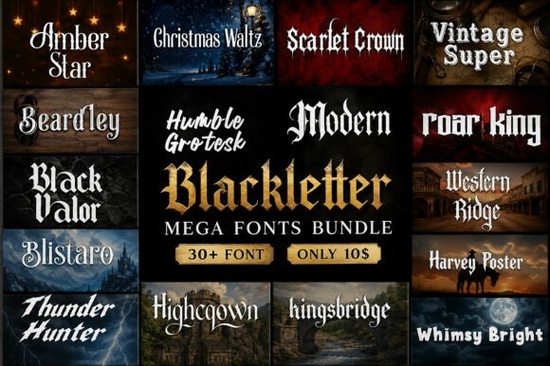
If you're looking for a versatile and stylish font collection to add to your design toolkit, the Modern Blackletter Mega Bundle Font is a fantastic choice. This bundle offers over 30 unique fonts, each with its own distinct personality, making it perfect for a wide range of creative projects.
What Makes the Modern Blackletter Mega Bundle Stand Out?
The Modern Blackletter Mega Fonts Bundle is a carefully curated collection that includes a variety of styles, from elegant gothic lettering and medieval-inspired typefaces to bold western and vintage display fonts. This diversity means you can find the right font for almost any project, whether you're working on logos, branding materials, or social media content.
Why Choose This Font Bundle for Your Creative Projects?
Designers, entrepreneurs, crafters, and content creators will appreciate the versatility and quality of this font bundle. Each font in the collection is designed to be both visually appealing and highly functional, allowing you to create professional and eye-catching designs with ease.
Key Features of the Modern Blackletter Mega Bundle Font
- 30+ Unique Fonts: A wide range of blackletter, gothic, medieval, vintage, and decorative display fonts.
- Logo Ready Typography: Ideal for creating distinctive and memorable logos.
Perfect for a Variety of Creative Projects
This font bundle is not just limited to one type of project. It's perfect for:
- Logo Design
- Branding Projects
- Clothing & T-Shirt Designs
- Posters & Flyers
- Book Covers
- Tattoo Designs
- Gaming Graphics
- YouTube Thumbnails
- Social Media Posts
- Packaging Design
- Invitations & Event Graphics
- Merchandise Design
- Cricut & Craft Projects
Featured Font Styles in the Bundle
Here are some of the standout fonts included in the Modern Blackletter Mega Bundle Font:
- Amber Star
- Christmas Waltz
- Scarlet Crown
- Beardley
- Humble Grotesk
- Vintage Super
- Black Valor
- Highcrown
- Roar King
- Blistaro
- Kingsbridge
- Western Ridge
- Harvey Poster
- Thunder Hunter
- Whimsy Bright
How to Use the Modern Blackletter Mega Bundle Font Effectively
To get the most out of this font bundle, consider the following tips:
- Experiment with Different Combinations: Mix and match different fonts to create unique and compelling designs.
- Use for Specific Themes: The gothic and medieval fonts are perfect for themed projects like book covers or event invitations.
- Test on Various Backgrounds: Ensure the fonts look great on different backgrounds, whether they're light, dark, or patterned.
- Keep It Simple: While the bundle offers many options, don't overdo it. Choose a few key fonts and stick with them for a cohesive look.
Final Thoughts
The Modern Blackletter Mega Bundle Font is a valuable addition to any designer's toolkit. With its wide range of styles and commercial use license, it offers endless creative possibilities. Whether you're working on a small personal project or a large-scale commercial design, this bundle has something for everyone.